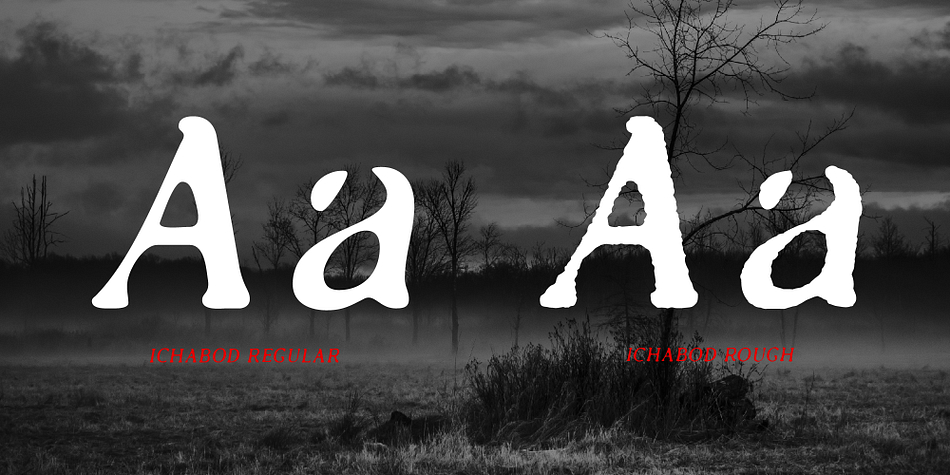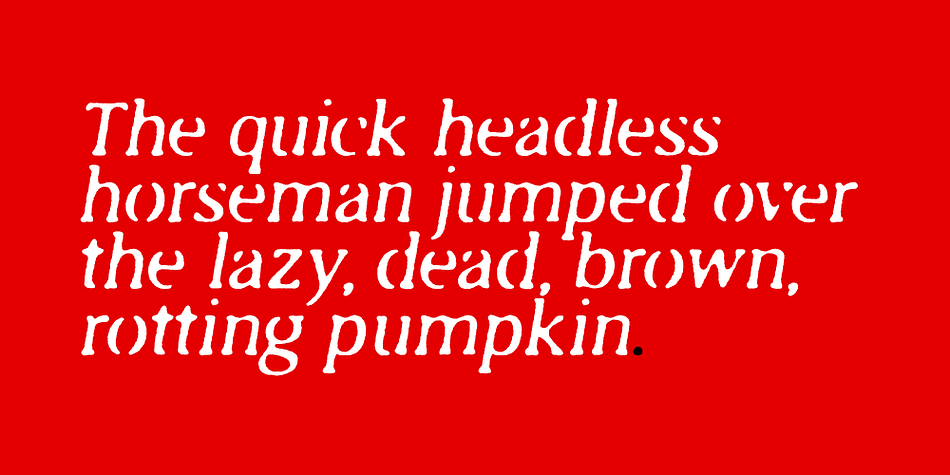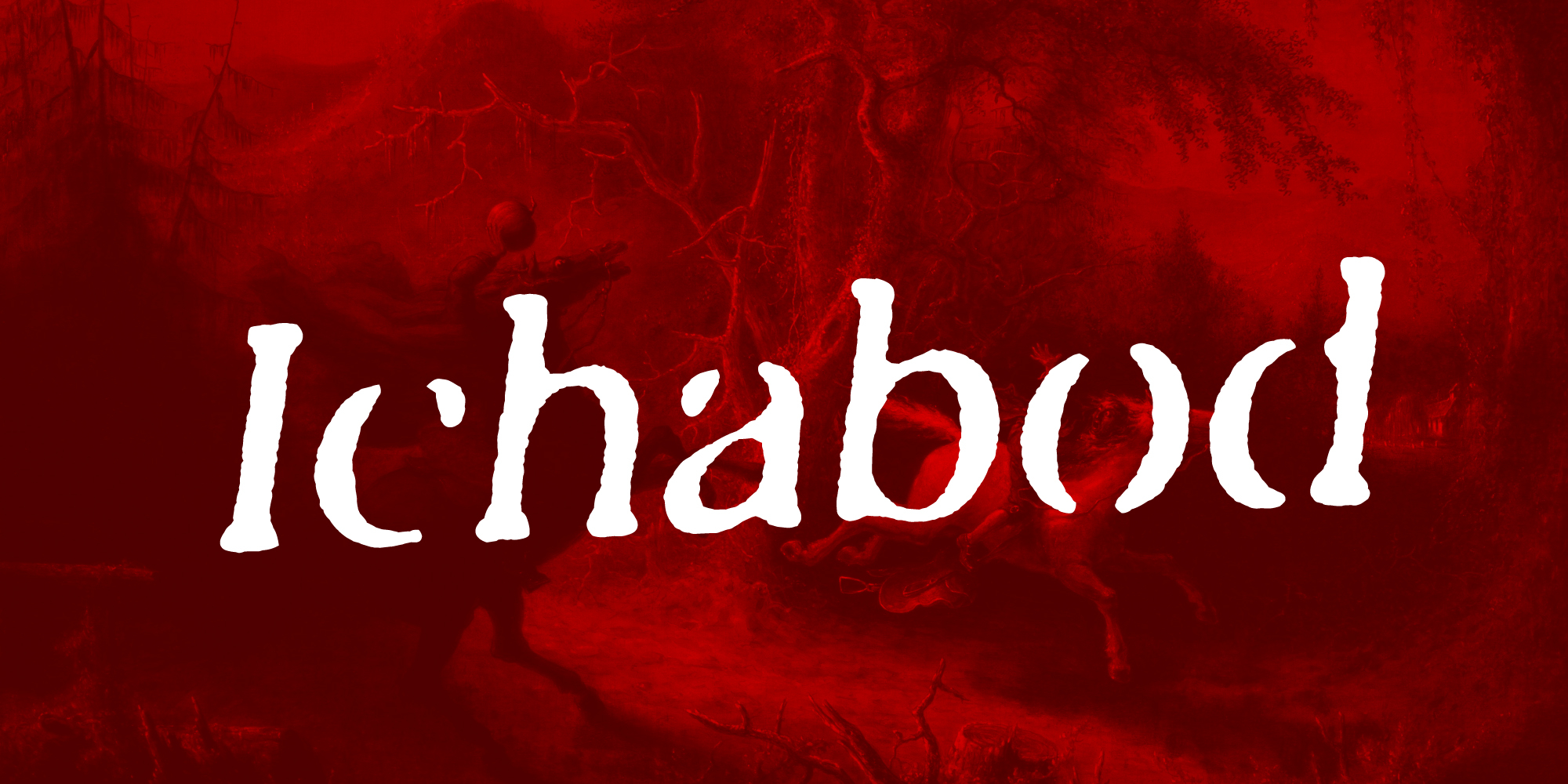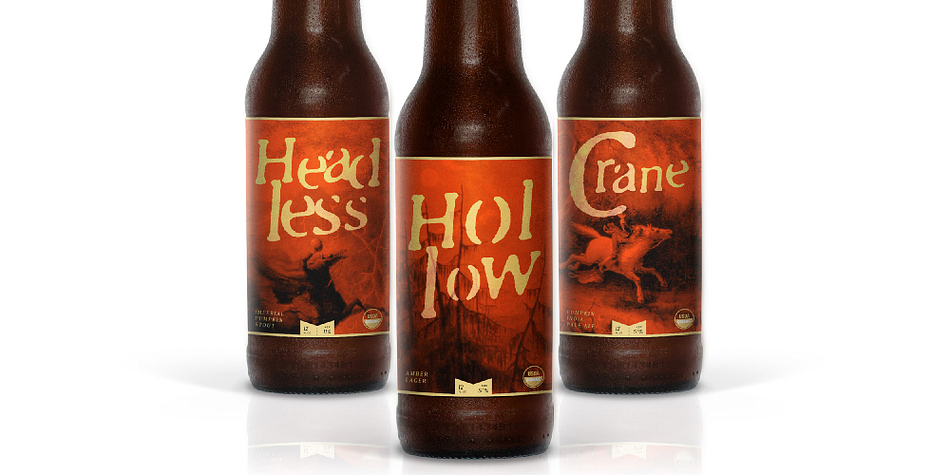
Ichabod is a historical and display serif font family. This typeface has two styles and was published by Tyler Finck.
Credit where credit is due, this typeface was inspired by the 1820 classic “The Legend of Sleepy Hollow” by Washington Irving (free read on Project Gutenberg). Ichabod was meant to feel 200 years old and 2 hours old at the same time. To call it “timeless” would be cliche, and a bit conceited, but there’s a classic, old world feel to Ichabod that I’m very happy to share.